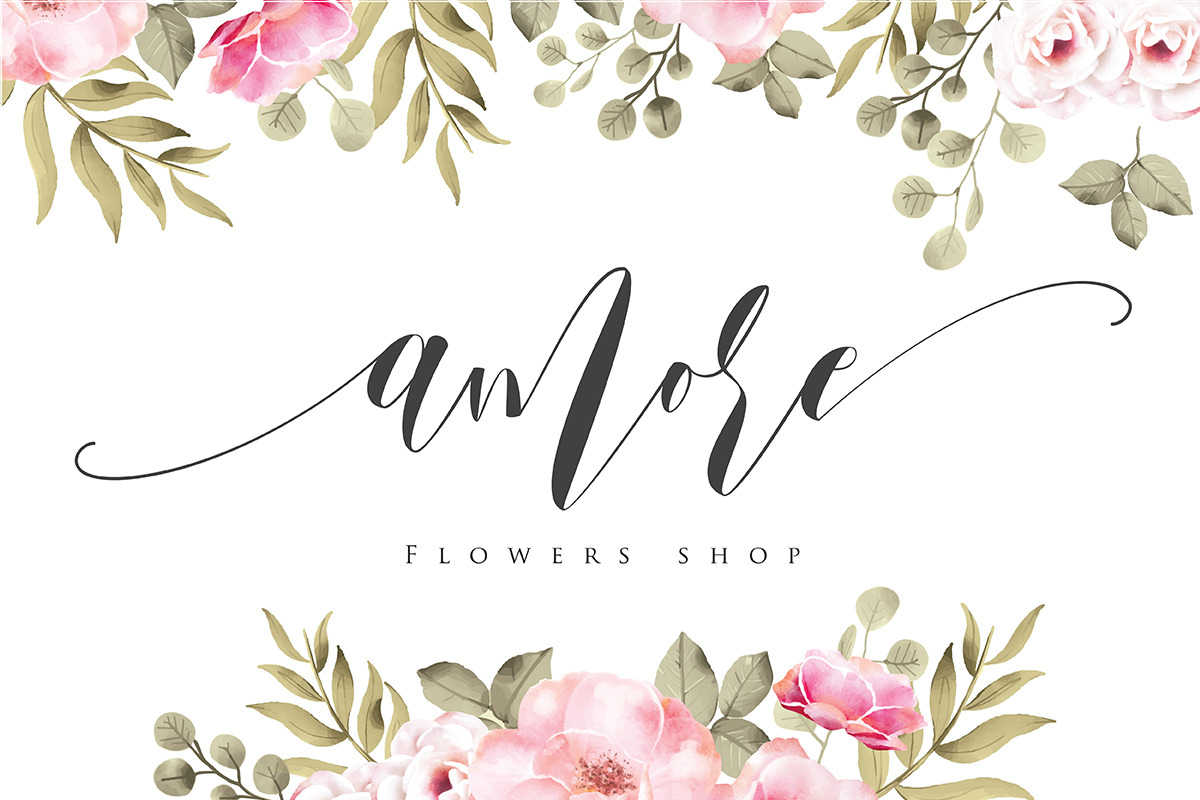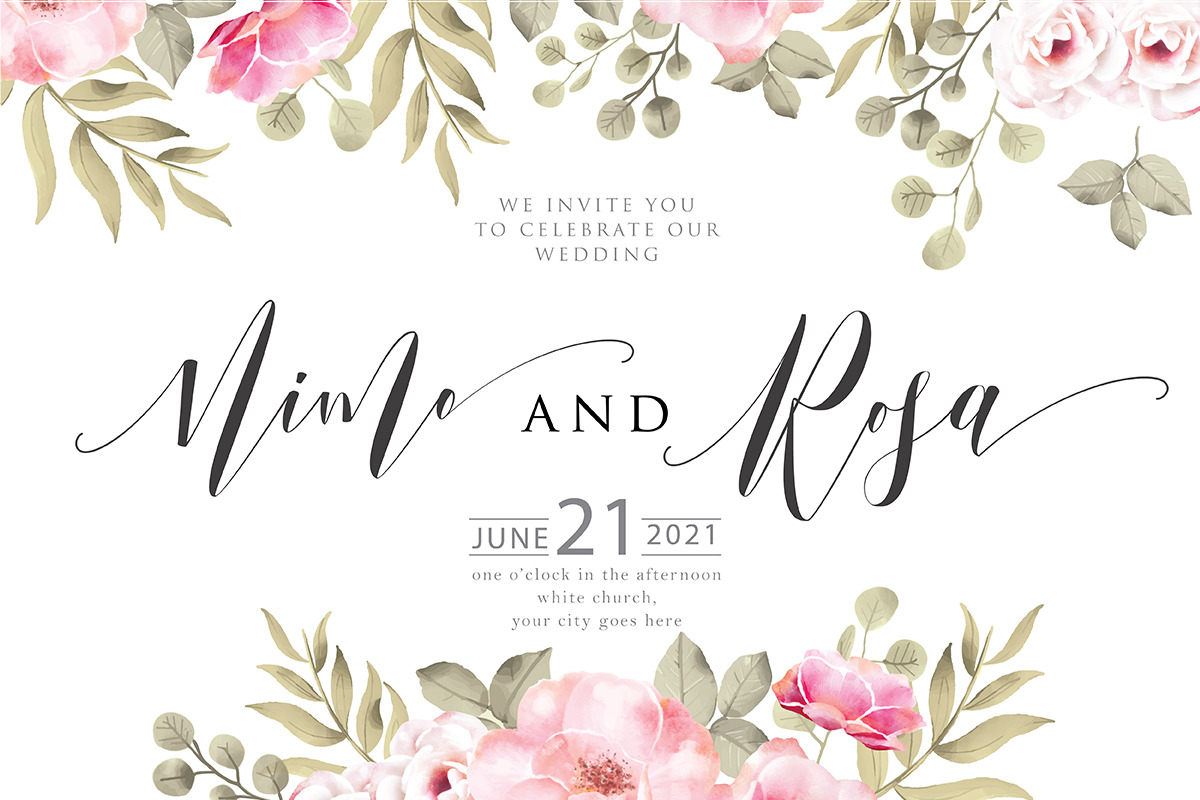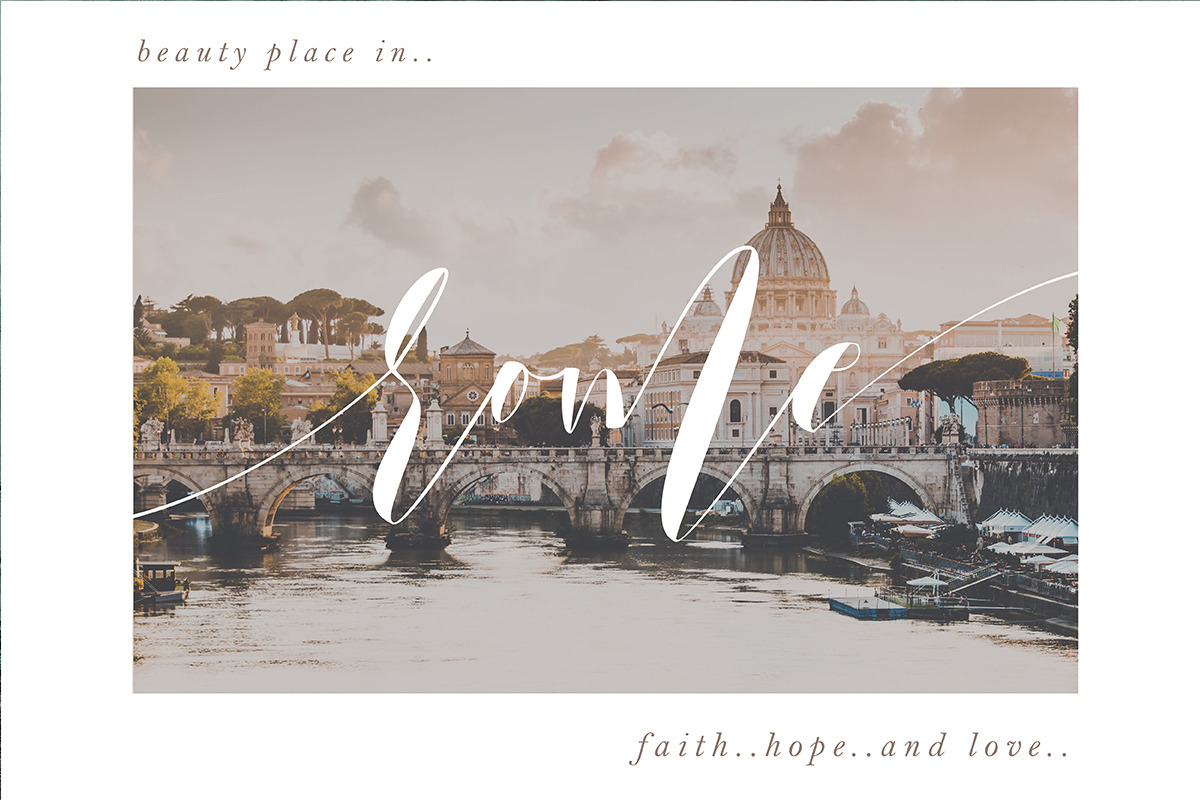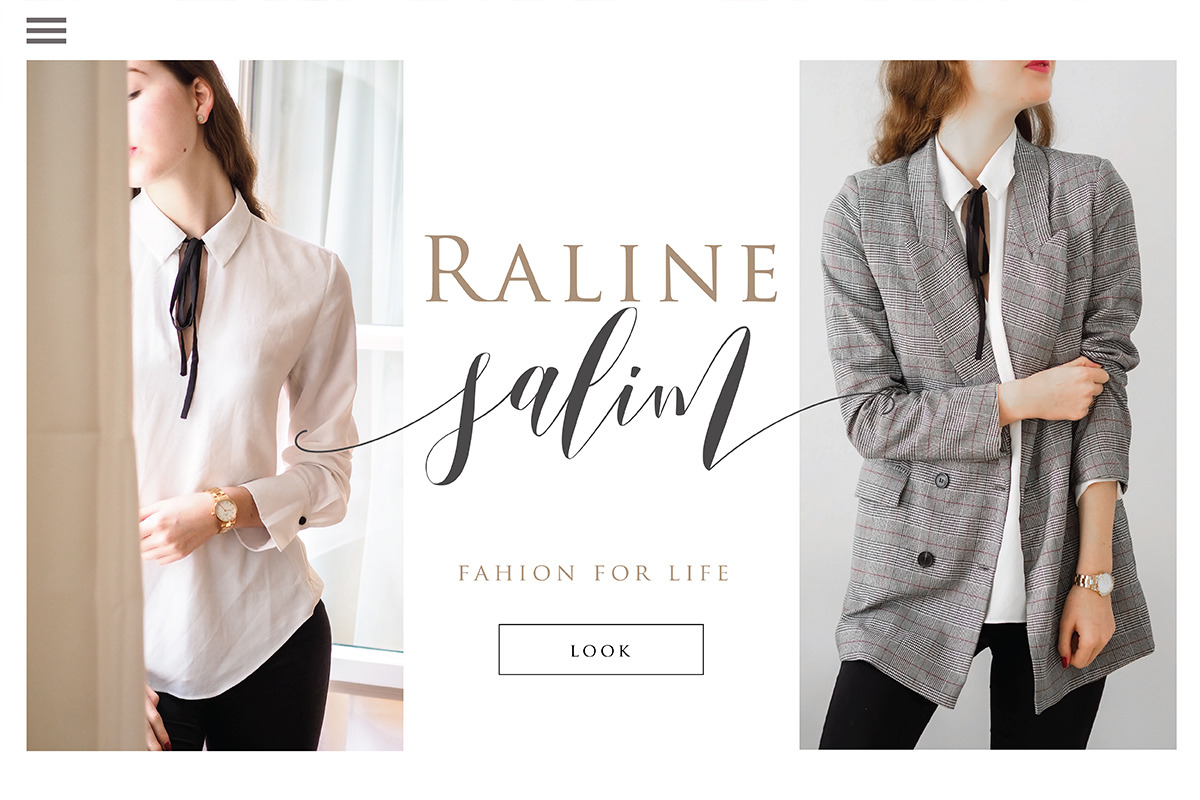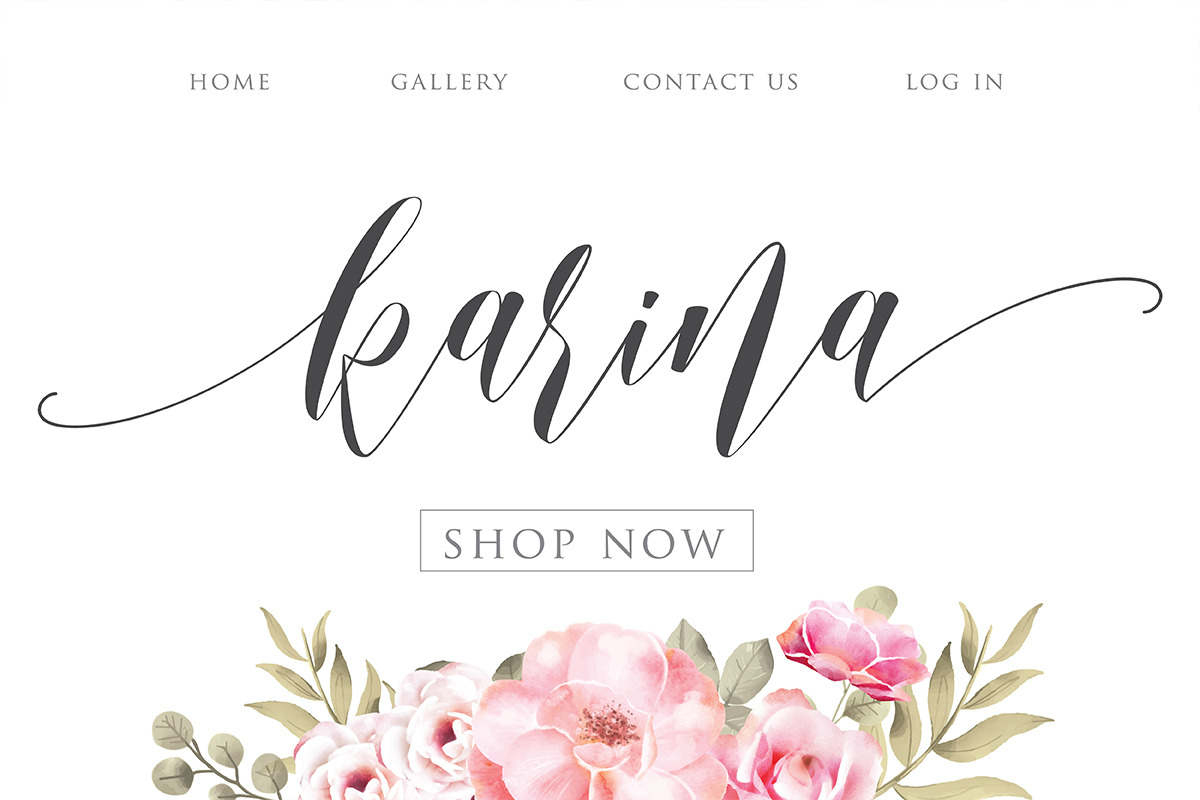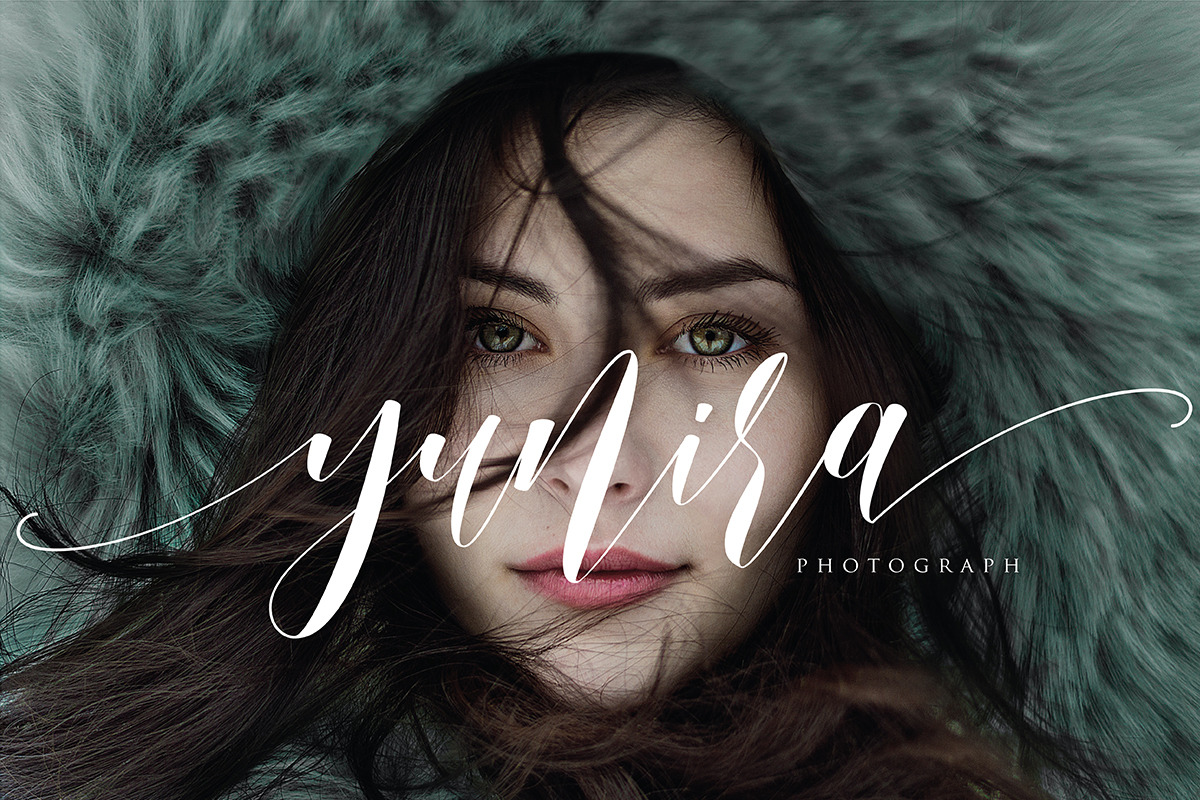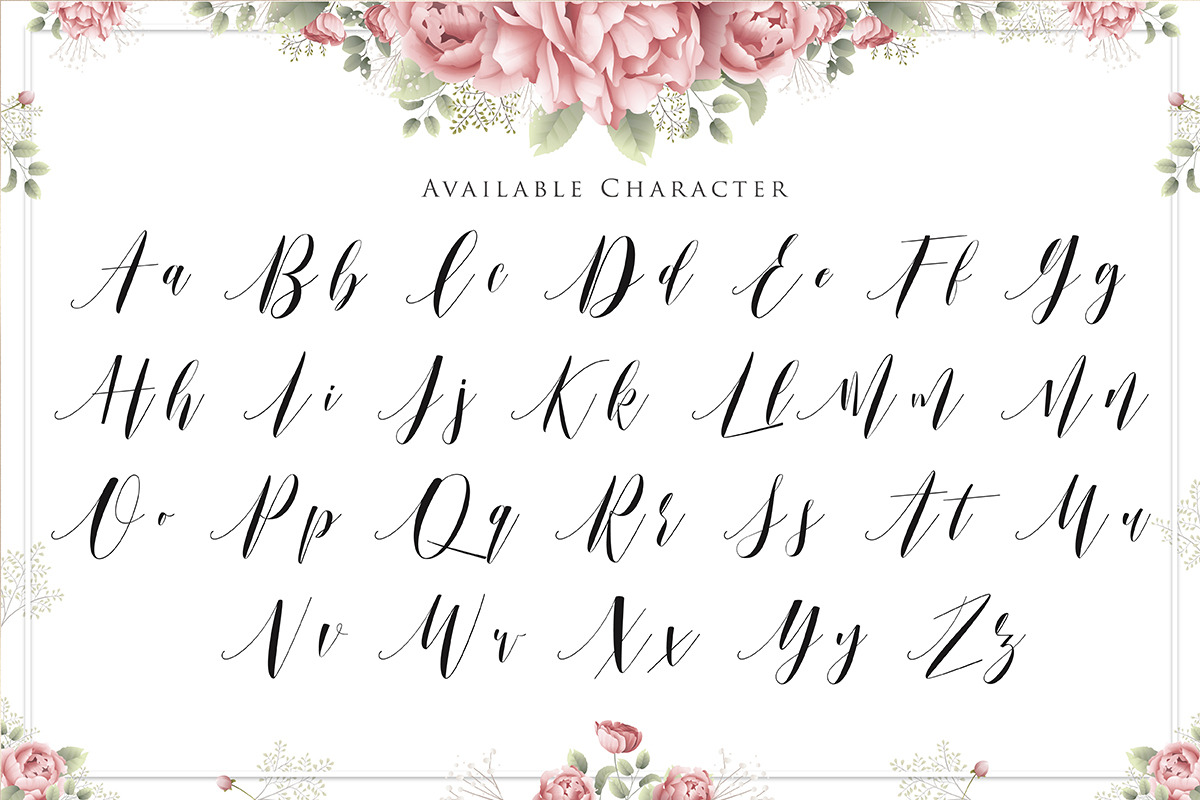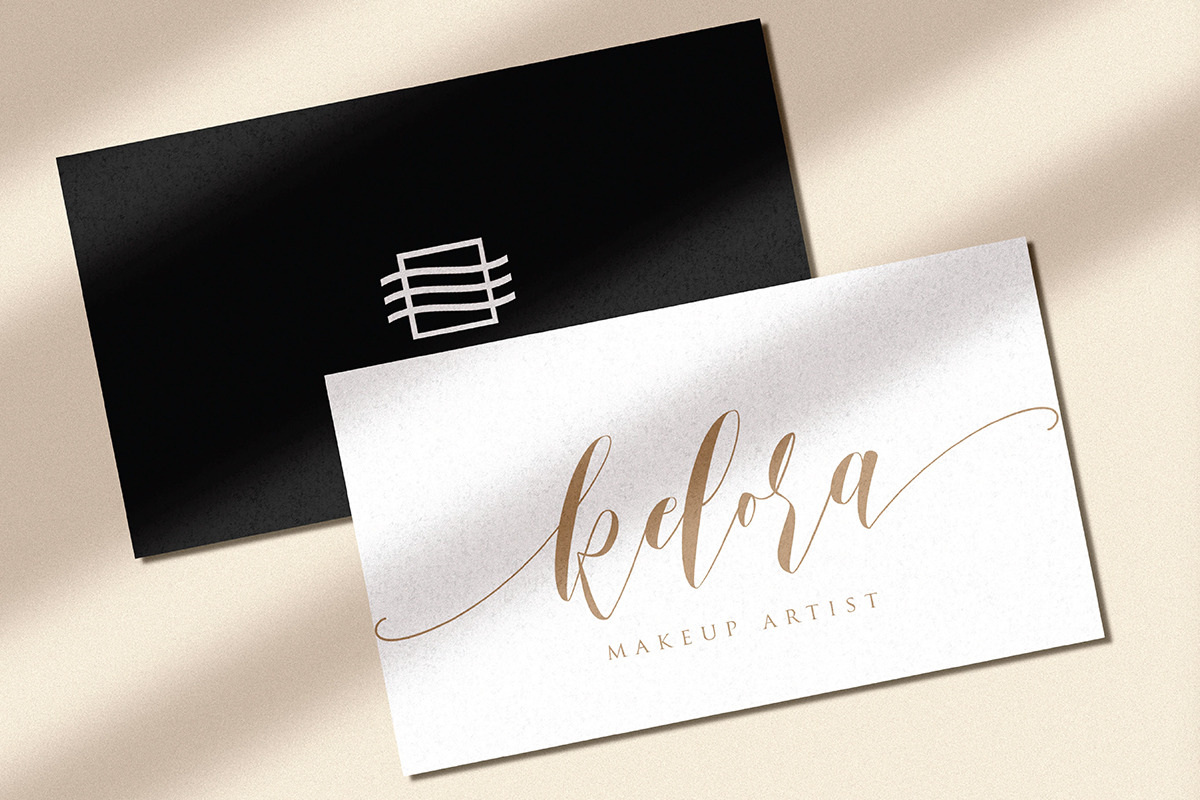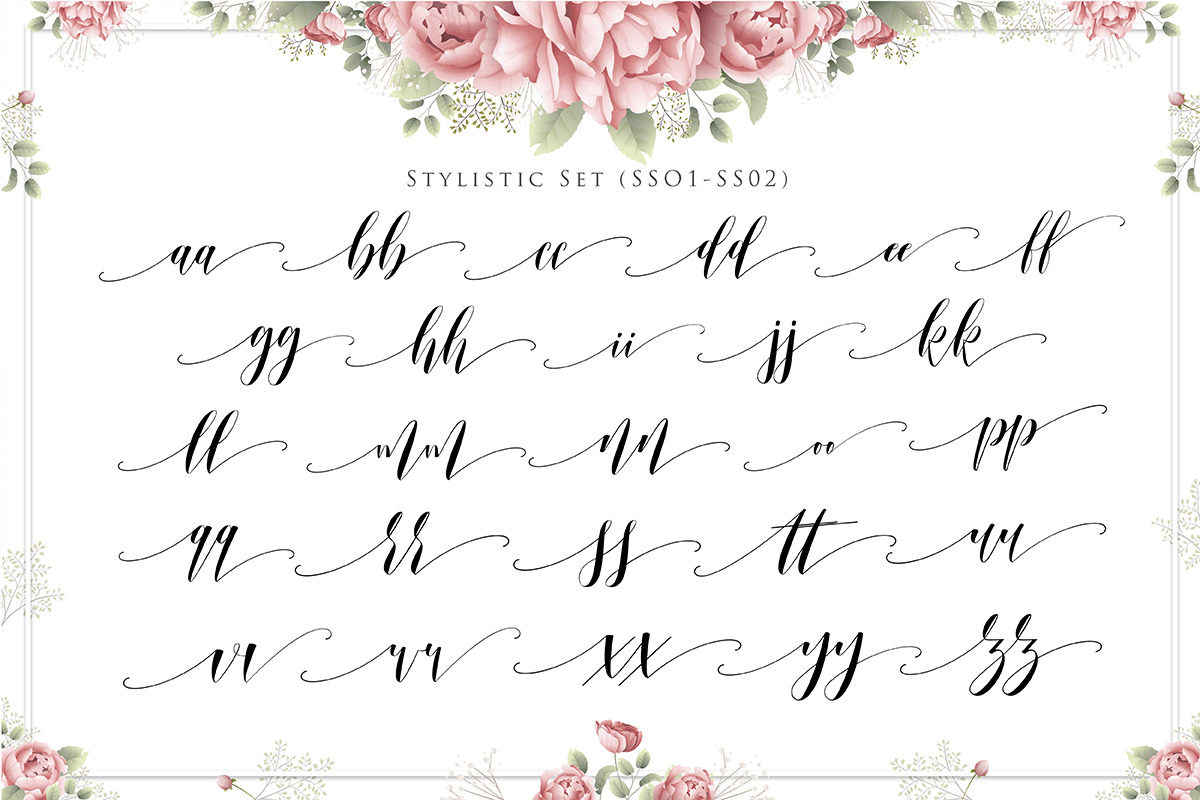
Marisa - A Modern Calligraphy
Marisa is a beautiful and flowing modern calligraphy font with beginning and ending swash.
It looks beautiful on a variety of designs requiring a personalized style, such as wedding invitations, thank you cards, weddings, greeting cards, logos and so on.
This font is PUA encoded which means you can access all of the glyphs and swashes with ease!
Marisa a new fresh & modern script with a handmade calligraphy style, decorative characters and a dancing swash ! So beautiful on invitation like greeting cards, branding materials, business cards, quotes, posters, and more!!
You can mix and match with Opentype feature:
More than 272 of glyphs
Stylistic sets from ss01 to ss02
Multilingual Language